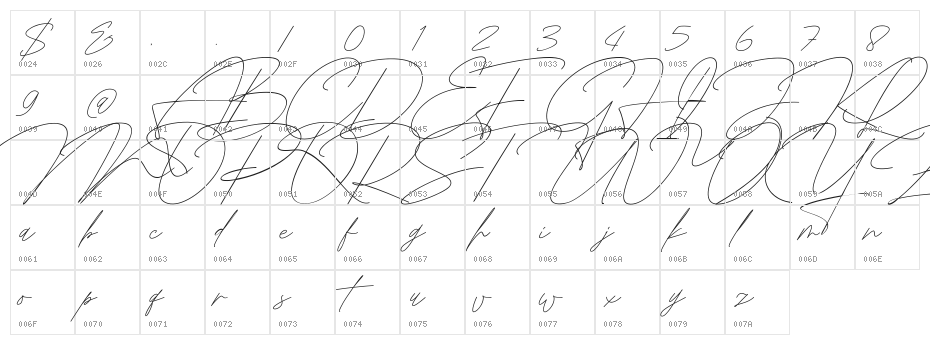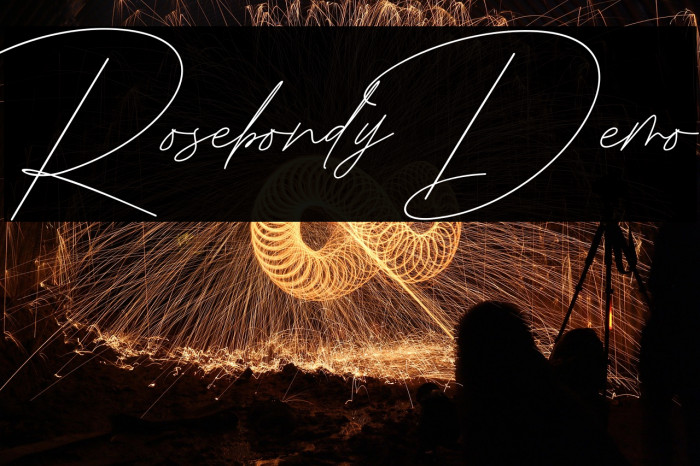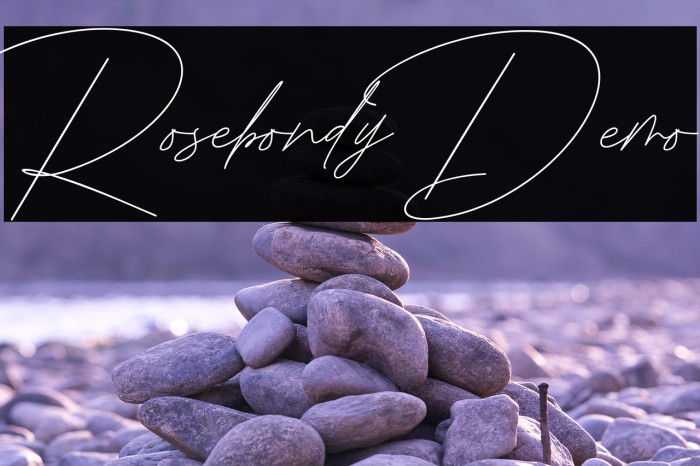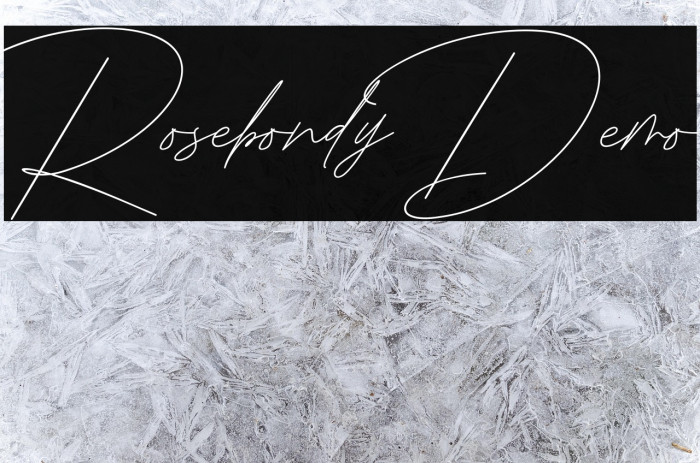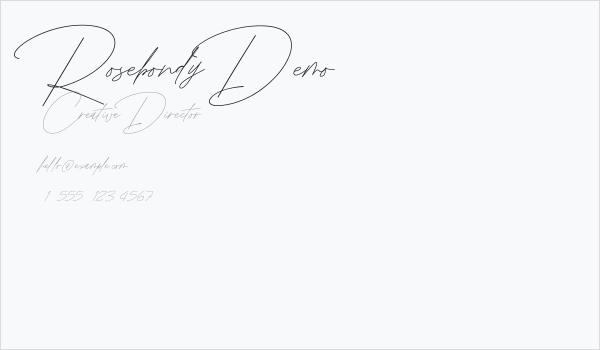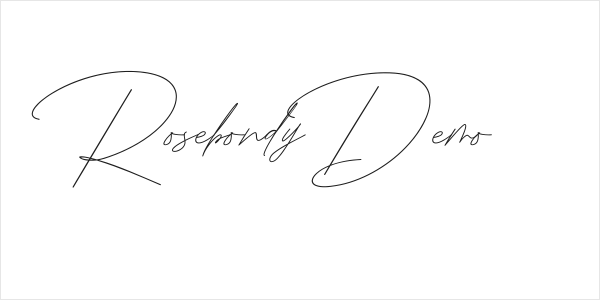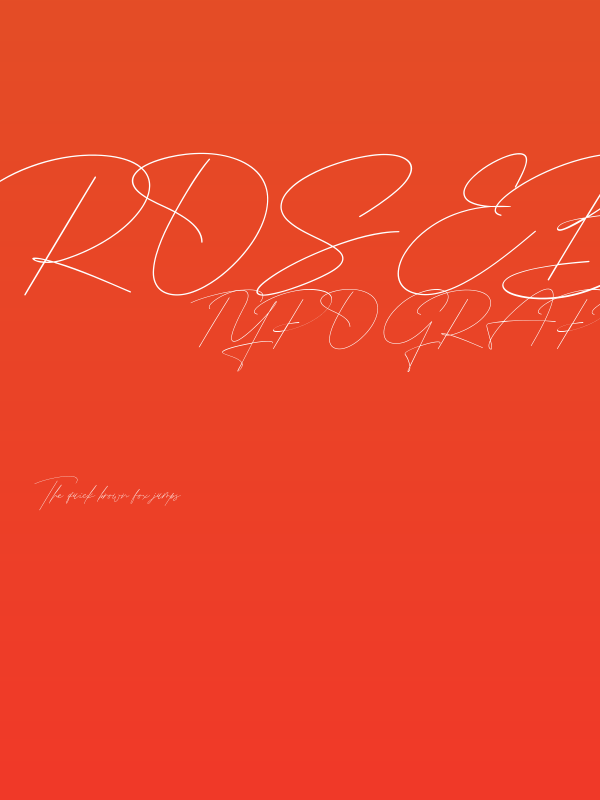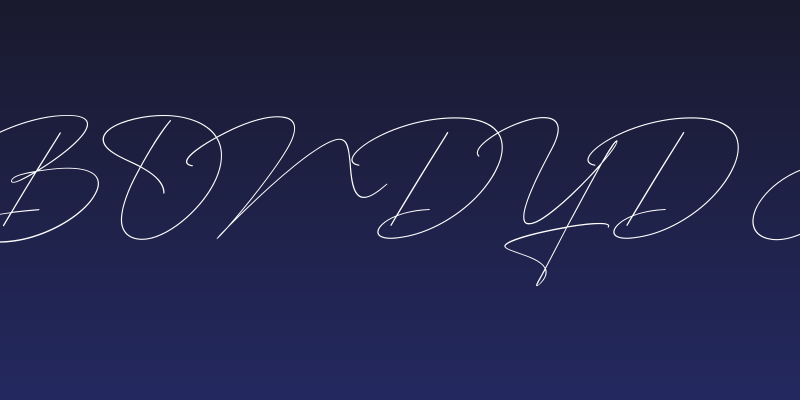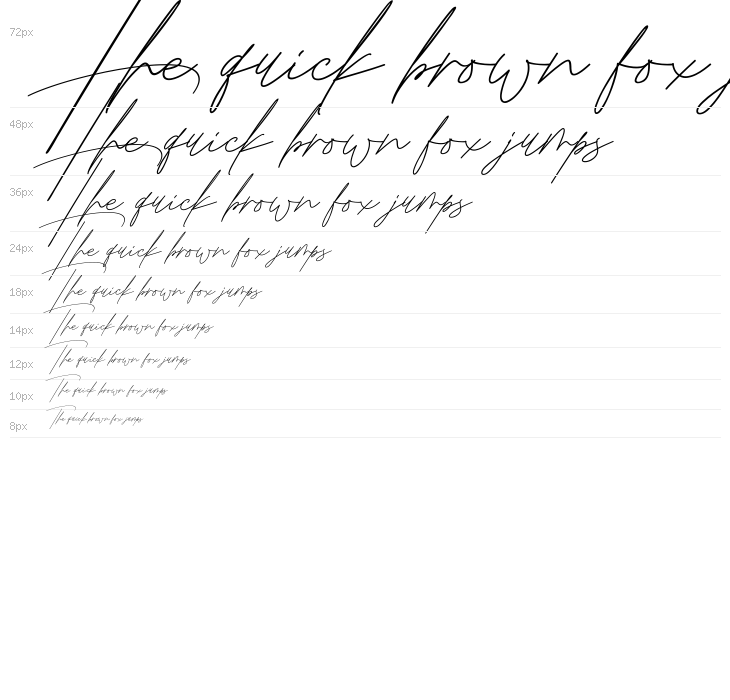
Rosebondy Demo Font
Rosebondy Demo Description
This font features a flowing, cursive style that mimics elegant handwriting. The uppercase letters are delicate and slightly slanted, giving them a sophisticated appearance. The lowercase letters are more pronounced, with a smooth and consistent stroke that maintains readability. Numbers and special characters are designed with the same fluidity, ensuring a cohesive look across all text. The overall aesthetic is graceful and refined, making it suitable for formal invitations, branding, and other projects that require a touch of elegance.
| Overall Style | Elegant, Handwritten |
| Use Case | Headlines, Invitations, Branding |
| Proposed Projects | Ideal for wedding invitations, elegant branding, personal stationery, and artistic projects. |